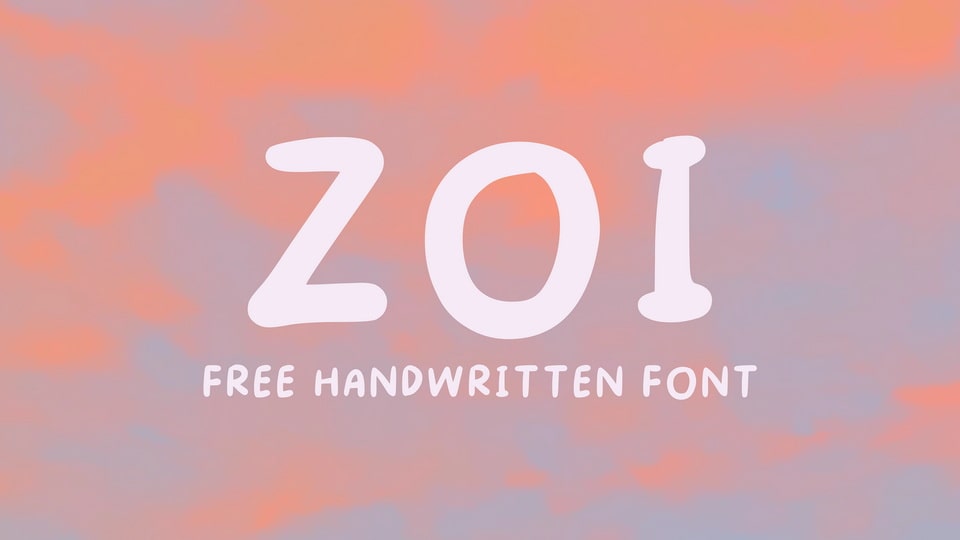
Download Zoi font, a clean, handwritten typeface that has a basic character set (Latin and some special characters). Zoi font is great for notes, quotes, comic books, crafts and more.